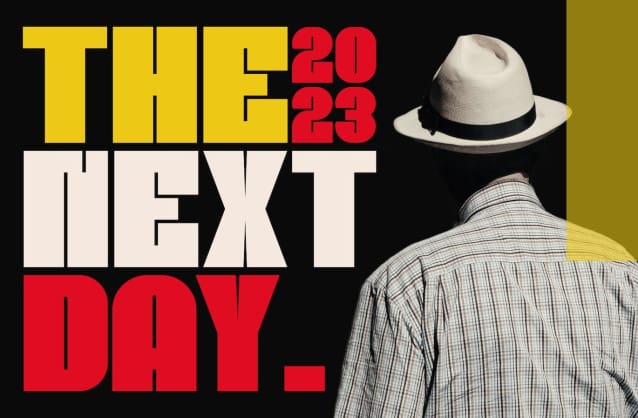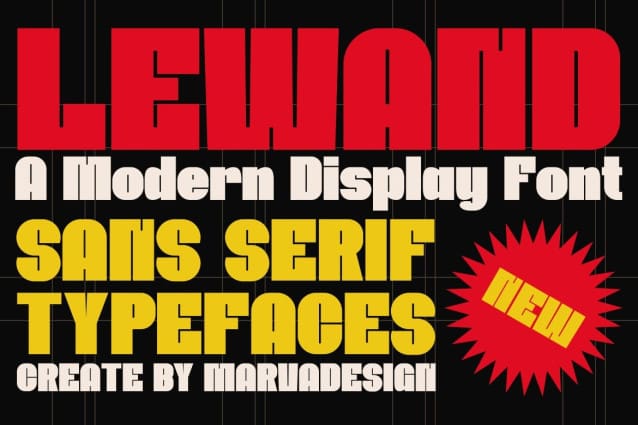
Lewand Font
Lewand Font – Modern Font is a bold and authentic display font. The font is suitable for any branding project like logo, Template Design, Product and many more. outstanding in a wide range of contexts.